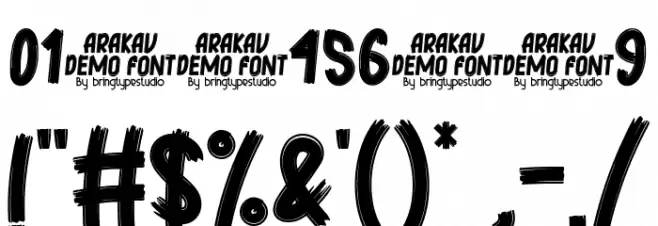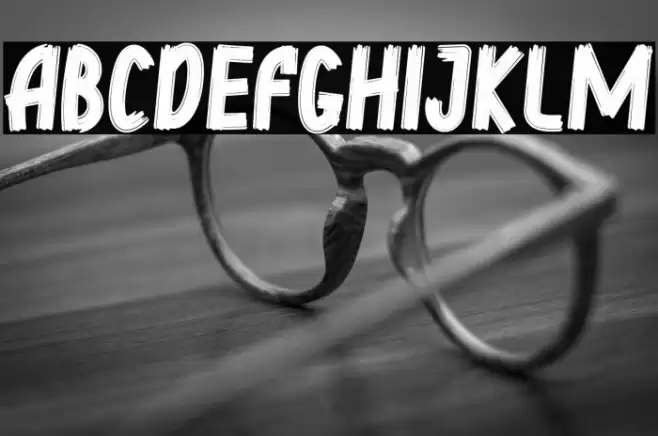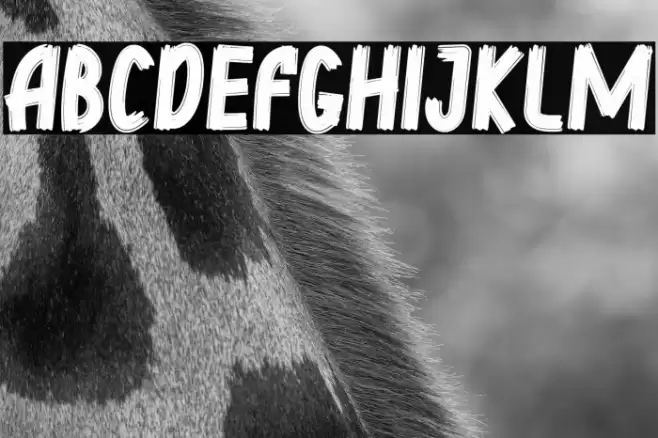
Arakav Font
Arakav Description
This font features a bold and dynamic style with a hand-drawn appearance. The strokes are thick and uneven, giving it a rugged and energetic feel. The characters are slightly slanted, adding to the sense of movement and vitality. The uppercase and lowercase letters maintain a consistent style, with a playful and informal tone. The numbers and special characters are equally expressive, making this font suitable for creative and eye-catching designs.
| Proposed Projects | Ideal for posters, album covers, branding projects, and any design requiring a bold, artistic touch. |